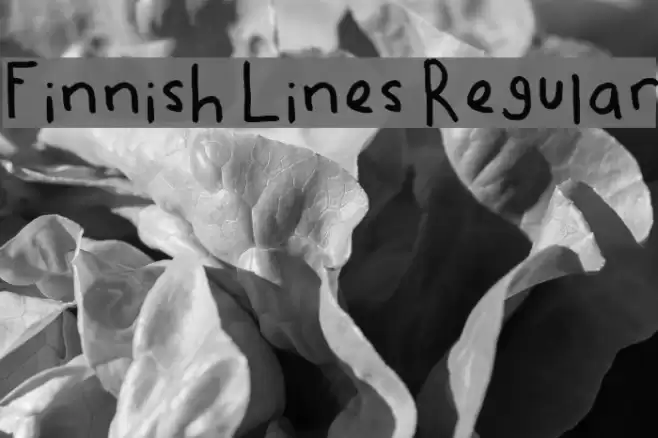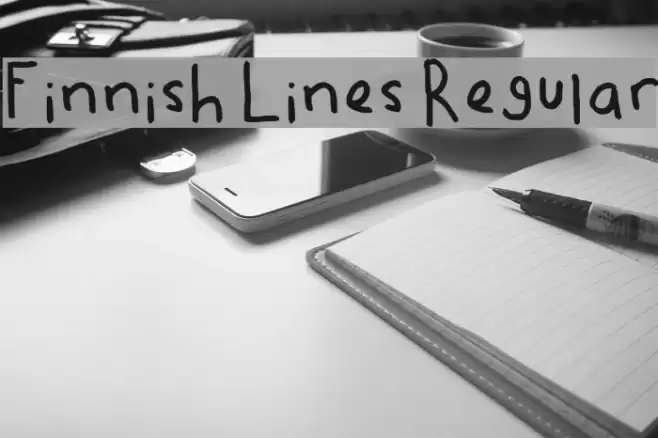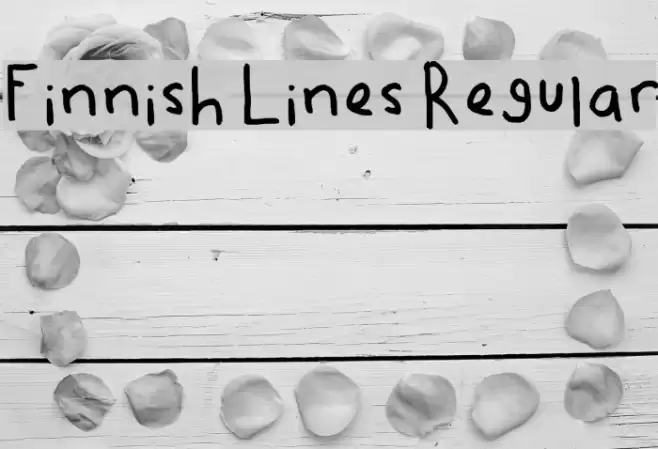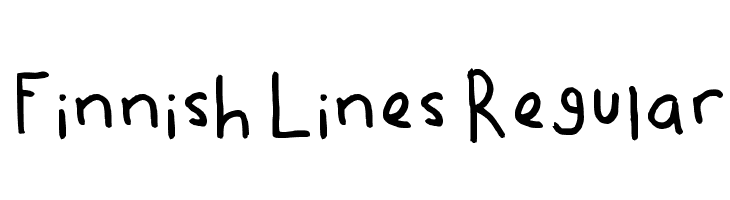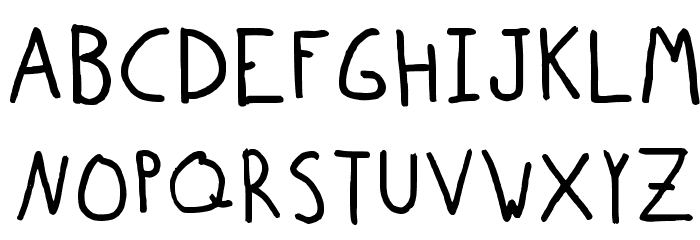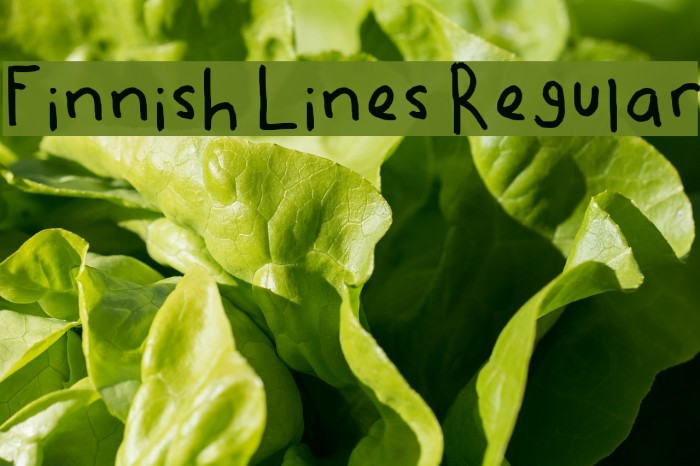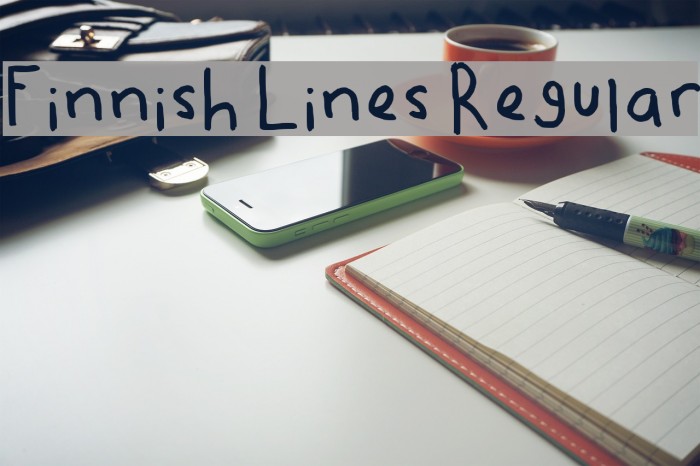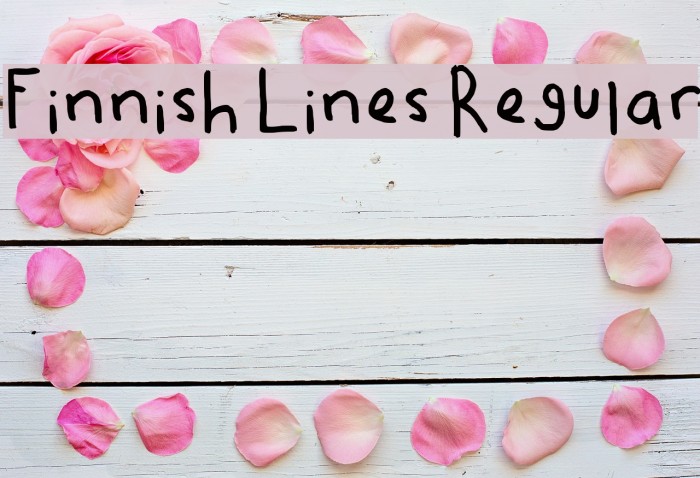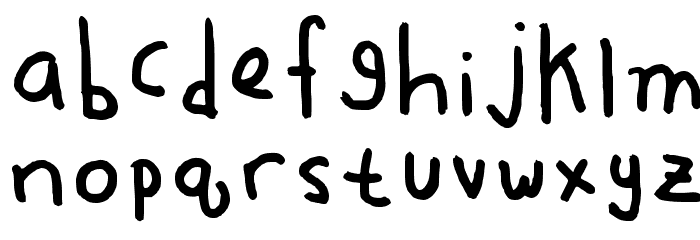
Finnish Lines Regular Font
Finnish Lines Regular Description
This font exhibits a playful and casual handwritten style, characterized by its uneven strokes and slightly irregular letterforms. The uppercase and lowercase letters maintain a consistent flow, giving it an organic and approachable feel. The characters are slightly rounded, with a whimsical touch that adds personality to the text. The font's informal nature makes it suitable for projects that require a personal or creative touch. Its simplicity and charm make it versatile for various design applications.
A playful, casual handwritten font with uneven strokes and a whimsical touch from Uncategorized fonts.
- Proposed Projects: Ideal for greeting cards, children's books, personal blogs, and creative branding projects.
- Overall Style: Casual, Playful
- Use Case: Headlines, Informal text, Creative projects